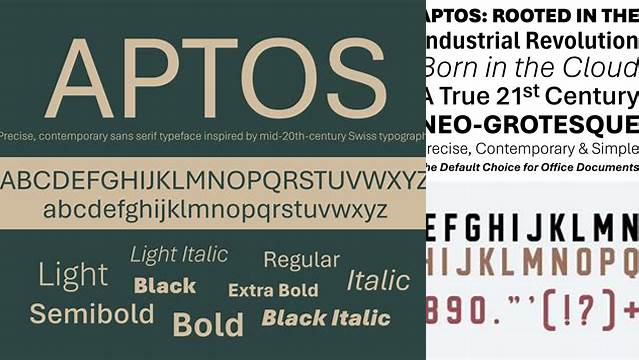
Aptos Display Font: Free Download & Usage Guide
Hey guys! Are you looking to spice up your design projects with a fresh, modern font? Look no further! Today, we're diving deep into the world of Aptos Display font, a sleek and versatile typeface that's been making waves in the design community. This article will guide you through everything you need to know about Aptos Display, from its origins and characteristics to where you can download it for free and how to best use it in your projects. So, buckle up and let's get started!
What is Aptos Display Font?
First things first, let's understand what makes Aptos Display so special. Aptos Display is a contemporary sans-serif typeface designed with a focus on clarity and readability. It boasts clean lines, balanced letterforms, and a modern aesthetic that makes it suitable for a wide range of applications. Whether you're working on a website, a branding project, or print materials, Aptos Display can add a touch of sophistication and professionalism. Its versatility stems from its neutral yet distinct personality, making it a solid choice for headlines, body text, and everything in between. The design philosophy behind Aptos Display emphasizes a harmonious balance between form and function. The letterforms are carefully crafted to ensure optimal legibility across various sizes and resolutions. This makes it an excellent option for digital platforms where screen readability is crucial. The subtle nuances in its design, such as the slightly rounded terminals and the consistent stroke weight, contribute to its overall polished appearance. Furthermore, Aptos Display often comes in a variety of weights and styles, giving designers the flexibility to create visual hierarchy and add emphasis where needed. From light and airy to bold and impactful, the different weights allow for a wide range of creative expressions. In essence, Aptos Display is more than just a font; it's a versatile tool that can elevate the visual appeal of any project. Its clean, modern design, combined with its excellent readability, makes it a favorite among designers and creatives worldwide. So, if you're looking for a font that can deliver both style and substance, Aptos Display is definitely worth exploring. We'll continue to delve deeper into its characteristics and usage in the following sections, so stay tuned!
Key Features and Characteristics of Aptos Display
Let's get into the nitty-gritty details of Aptos Display's key features. What exactly makes this font stand out from the crowd? Well, there are several characteristics that contribute to its unique appeal and versatility. For starters, Aptos Display is a sans-serif typeface, which means it lacks the small decorative strokes (serifs) found at the end of letters in serif fonts like Times New Roman. This gives it a cleaner, more modern look that's perfect for contemporary designs. The absence of serifs also enhances readability, especially on screens, making it a fantastic choice for websites and digital applications. Another notable feature is its balanced letterforms. The proportions of each letter are carefully considered to create a harmonious and visually pleasing rhythm. This balance is crucial for maintaining readability and ensuring that the text flows smoothly. The consistent stroke weight throughout the font further contributes to its cohesive appearance. The subtle rounding of the letter terminals adds a touch of warmth and approachability to the font. This prevents it from feeling too sterile or clinical, making it suitable for a wide range of applications, from corporate branding to creative marketing materials. The versatility of Aptos Display is also evident in its various weights and styles. Typically, it comes in a range of weights, including Light, Regular, Medium, Bold, and sometimes even Extra Bold. This allows designers to create visual hierarchy and add emphasis to different parts of their text. For example, you might use the Bold weight for headlines and the Regular weight for body text. In addition to weights, Aptos Display may also include stylistic variations such as italics or condensed versions. These variations provide even more flexibility and allow designers to fine-tune the appearance of their text to match the overall design aesthetic. In short, Aptos Display is characterized by its clean lines, balanced letterforms, consistent stroke weight, and subtle rounding. Its versatility stems from its sans-serif design and the availability of various weights and styles. These features combine to make it a powerful and adaptable typeface that can enhance the visual impact of any project. Now that we've explored its key characteristics, let's move on to where you can actually download this fantastic font for free!
How to Use Aptos Display in Your Design Projects
Alright, you've downloaded Aptos Display, and you're itching to put it to work. But how do you actually use it effectively in your design projects? The key is to understand its strengths and choose applications that complement its aesthetic. Aptos Display, with its clean and modern sans-serif design, is incredibly versatile. It works well in a variety of contexts, from web design to print materials. Let's explore some specific use cases. For website design, Aptos Display is an excellent choice for both headings and body text. Its clean lines and balanced letterforms ensure readability on screens, which is crucial for user experience. Use the bolder weights for headings to create a strong visual hierarchy and draw attention to key information. The regular weight is perfect for body text, providing a comfortable reading experience. In branding projects, Aptos Display can help convey a sense of professionalism and modernity. It's suitable for logos, business cards, brochures, and other marketing materials. Its neutral yet distinct personality makes it a great choice for brands that want to project a clean and sophisticated image. For print materials, such as posters, flyers, and magazines, Aptos Display offers excellent legibility and visual appeal. Use it in headlines to grab attention and in body text to ensure readability. Experiment with different weights and styles to create visual interest and hierarchy. In user interface (UI) design, Aptos Display shines as a clear and readable typeface for buttons, labels, and other interface elements. Its clean design helps users navigate the interface easily. When using Aptos Display, consider the overall design aesthetic and choose weights and styles that complement the visual theme. For example, if you're working on a minimalist design, stick to the lighter weights and avoid overly bold styles. If you're working on a more dynamic design, you can experiment with bolder weights and different styles to create contrast and visual interest. Pay attention to font pairing as well. Aptos Display pairs well with other sans-serif fonts, as well as some serif fonts. Experiment with different combinations to find what works best for your project. Some popular font pairings include Open Sans, Montserrat, and Roboto. Remember to use appropriate font sizes for different elements of your design. Headings should be larger and more prominent than body text. Use a consistent font size for body text to ensure readability. In general, aim for a body text size of 16-18 pixels for web design and 10-12 points for print materials. Finally, consider the overall contrast between the text and the background. Ensure that there is sufficient contrast to make the text easily readable. Use dark text on a light background or light text on a dark background. In conclusion, Aptos Display is a versatile typeface that can be used effectively in a wide range of design projects. Whether you're working on a website, branding materials, print designs, or UI elements, Aptos Display can help you achieve a clean, modern, and professional look. By understanding its strengths and following these tips, you can leverage Aptos Display to create visually stunning and highly effective designs. Now that you have a solid understanding of how to use Aptos Display, let's wrap things up with a summary of its benefits and a few final thoughts.
Benefits of Using Aptos Display
So, why should you choose Aptos Display over other fonts? What are the specific benefits it brings to the table? Let's break it down. The most significant advantage of Aptos Display is its versatility. As we've discussed, it's a typeface that works well in a wide range of applications, from web design to print materials. Whether you're creating a website, designing a logo, or laying out a brochure, Aptos Display can adapt to your needs. Its clean, modern aesthetic makes it suitable for both professional and creative projects. Another key benefit is its readability. Aptos Display's balanced letterforms and consistent stroke weight ensure that text is easy to read, even at small sizes. This is particularly important for body text and user interface elements. Good readability enhances user experience and ensures that your message is effectively communicated. The modern aesthetic of Aptos Display is another compelling reason to use it. Its clean lines and sans-serif design give it a contemporary feel that's perfect for brands and projects that want to project a forward-thinking image. It's a typeface that feels fresh and up-to-date, making it a great choice for modern designs. The availability of various weights and styles adds to its versatility. With options ranging from Light to Bold, and sometimes including italics and condensed versions, Aptos Display gives you the flexibility to create visual hierarchy and add emphasis where needed. This allows you to fine-tune the appearance of your text to match the overall design aesthetic. The open-source nature of many Aptos Display versions (especially those available on Google Fonts) is a major advantage. This means that you can use the font for both personal and commercial projects without worrying about licensing fees. It's a cost-effective option for designers and businesses of all sizes. Aptos Display's compatibility across different platforms and devices is also worth noting. It's a web-safe font, meaning it will render correctly in most browsers and operating systems. This ensures a consistent user experience across different devices. Finally, the professional appearance of Aptos Display can elevate the overall look and feel of your designs. It's a typeface that conveys a sense of polish and sophistication, making it a great choice for projects that need to make a strong impression. In summary, the benefits of using Aptos Display are numerous. Its versatility, readability, modern aesthetic, availability of various weights and styles, open-source nature, compatibility, and professional appearance all combine to make it an excellent choice for a wide range of design projects. So, if you're looking for a font that delivers both style and substance, Aptos Display is definitely worth considering. In our final section, let's wrap up with some final thoughts and recommendations.
Final Thoughts and Recommendations
So, there you have it, guys! A comprehensive guide to Aptos Display font, from its key features and where to find free downloads to how to use it effectively in your design projects. We've covered a lot of ground, and hopefully, you now have a solid understanding of why Aptos Display is such a popular and versatile typeface. To recap, Aptos Display is a modern sans-serif font characterized by its clean lines, balanced letterforms, and excellent readability. It's a versatile choice for a wide range of applications, including web design, branding projects, print materials, and user interface design. Its availability in various weights and styles gives you the flexibility to create visual hierarchy and add emphasis where needed. One of the biggest advantages of Aptos Display is its availability for free download from reputable sources like Google Fonts and Font Squirrel. This makes it an accessible option for designers and businesses of all sizes. When using Aptos Display, remember to consider its strengths and choose applications that complement its aesthetic. It works well as both a headline and body text font, and it pairs nicely with other sans-serif fonts as well as some serif fonts. Pay attention to font sizes, contrast, and overall design aesthetic to ensure that you're using it effectively. If you're looking for a modern, versatile, and readable font for your next project, Aptos Display is definitely worth considering. Its clean and professional appearance can elevate the look and feel of your designs, helping you create visually stunning and highly effective communication. Remember to always download fonts from trusted sources and to check the licensing terms before using them in your projects. This will help you avoid any potential legal issues and ensure that you're using the font ethically. As a final recommendation, experiment with Aptos Display in your own projects and see how it can enhance your designs. Try it out in different contexts, pair it with different fonts, and explore its various weights and styles. The best way to truly understand a font's potential is to use it in real-world scenarios. So, go ahead and download Aptos Display, start experimenting, and let your creativity flow! We hope this guide has been helpful and informative. Happy designing, guys!